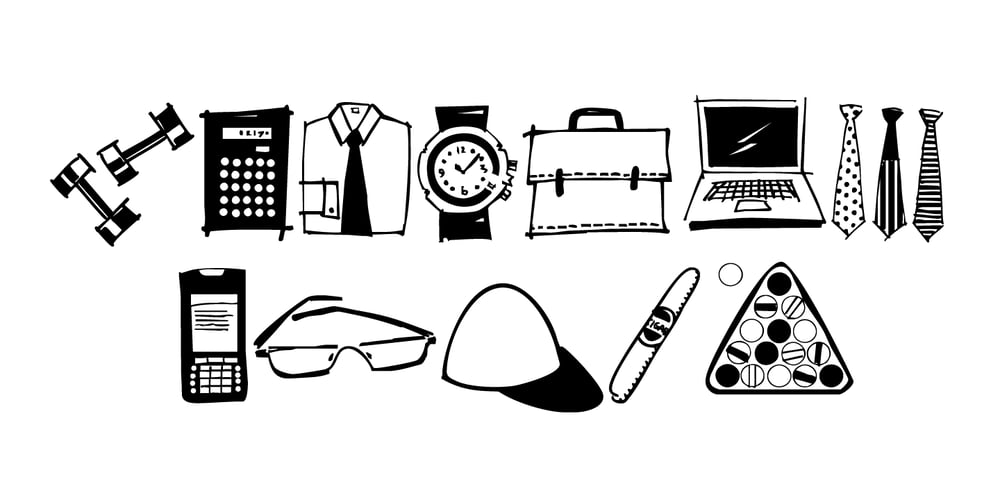
Guy Doodles Font Family was designed by Rae Kaiser and published by Outside the Line. Guy Doodles contains 1 styles and family package options. Fun, illustrations of guy stuff. This font is another of the many doodle fonts from Outside the Line. Goes well with Diva Doodles and Diva Doodles Too.